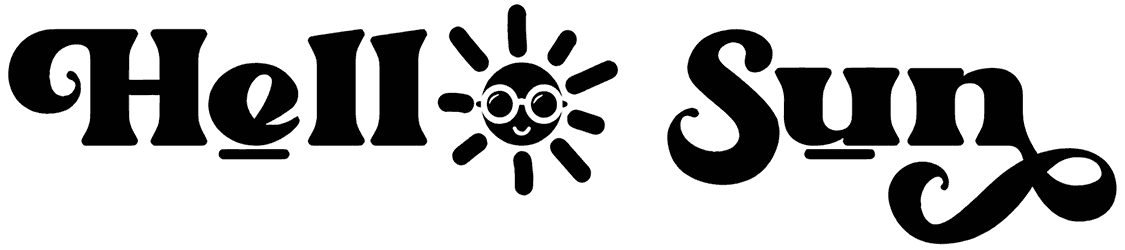
Hello Sun Font
For some fonts, even a quick glance over the character map is enough to end up in many designers’ favorite collections, and Hello Sun is obviously one of those. It’s not just fun, that’s typical for any summer font of RB, but it’s also so decorative and eye-pleasing.
After all, we’re talking about a swash font with curly tails, ready to lend a retro flavor to your beach party posters, good morning IG stories, and anything that doesn’t need any numbers.